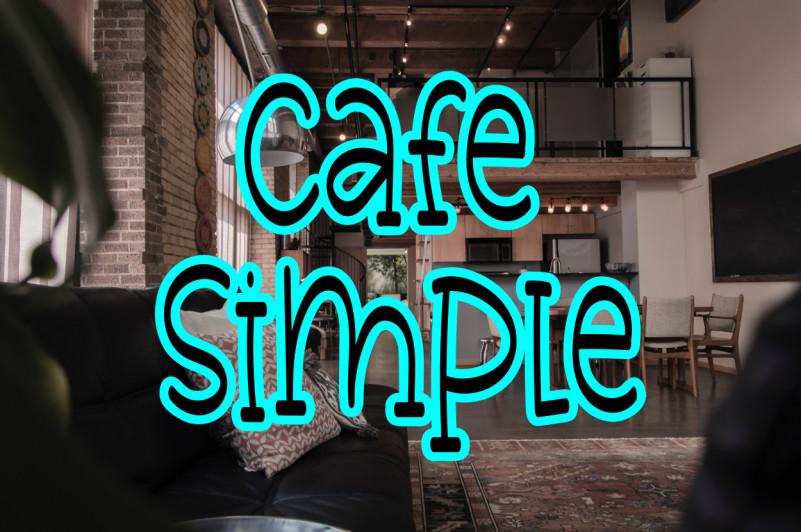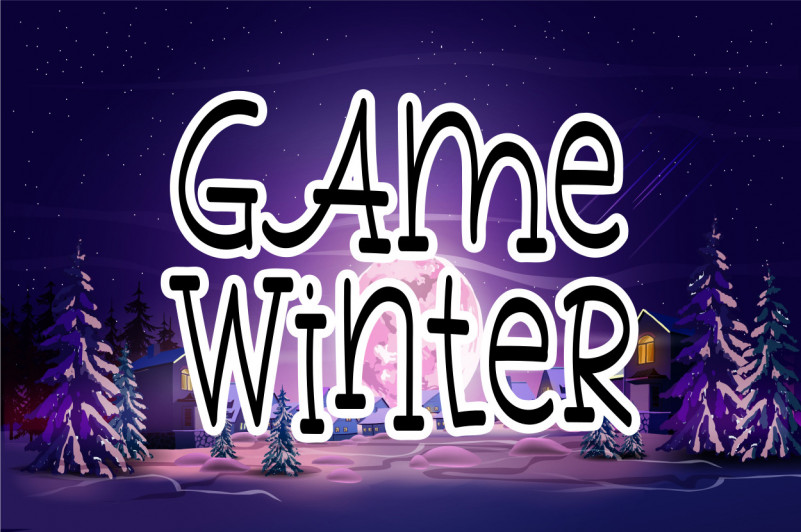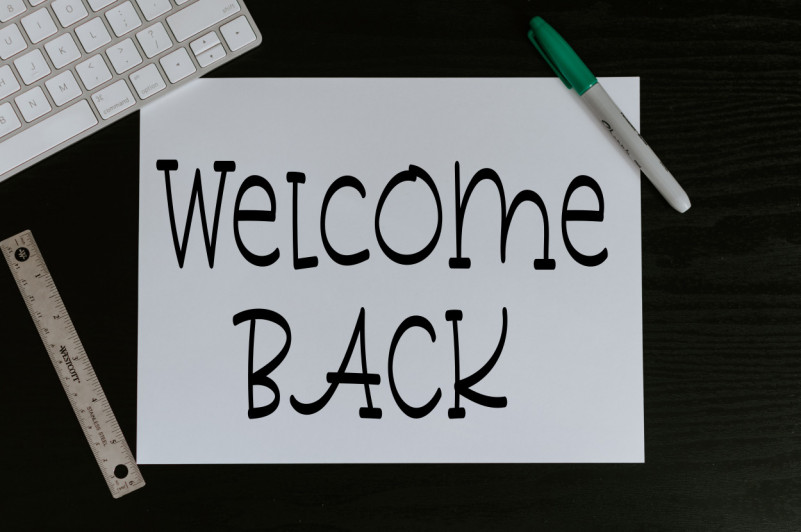
Hellow Holiday Font
Hellow Holiday Display Font
This is an incredibly quirky and sweet display font. Whether you use it for cartoon related designs, children games or just any creation that requires a lovely touch, this font will be an amazing choice.